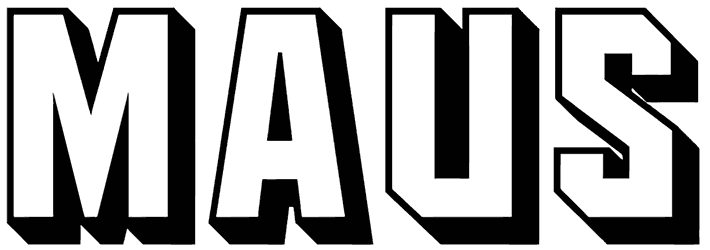
Maus Font
Bold letters in a square shape are the elements that give a 3D font like Maus a retro vibe. This font comes across as a simple design, but that is its charm, which makes it perfect for sports clothes writing, stadium signs, billboards, and all sorts of advertisements.
There are no lowercase letters in this collection, but do not doubt that this font has anything less than the other to offer. You wanna check out RB daily if you don’t want to be left behind on our offers.